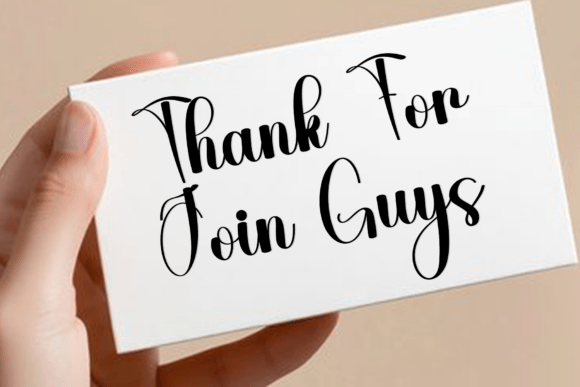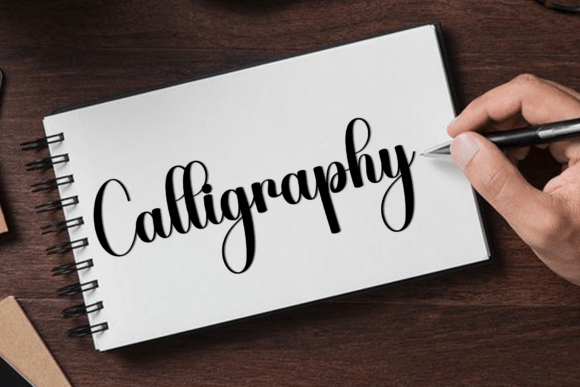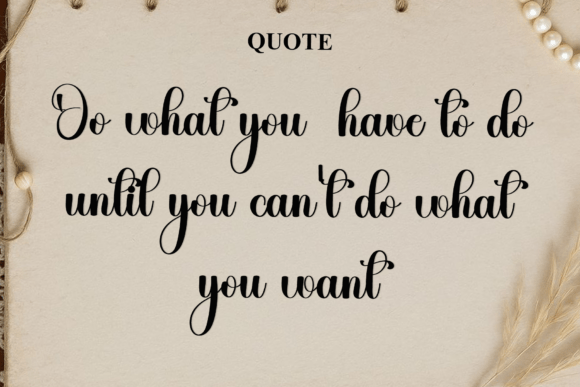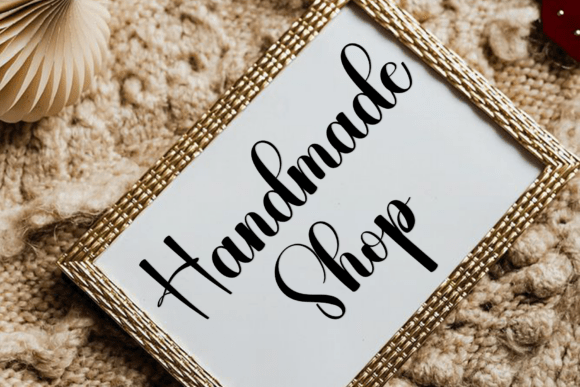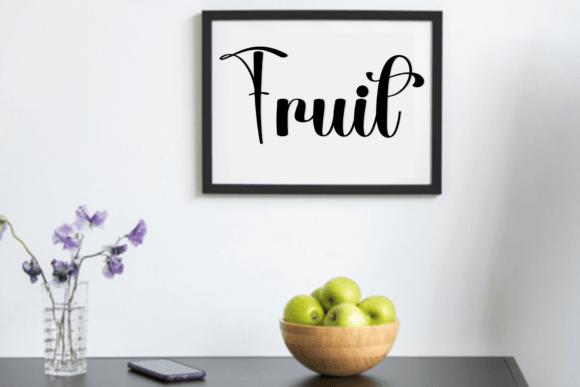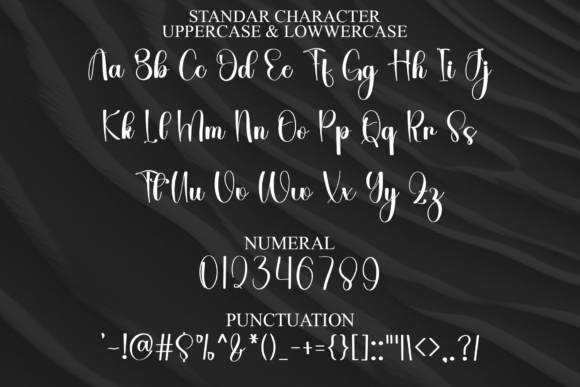
Get Ready to Deck the Halls with the Camping Holiday Font
As the snowflakes start to fall and the fireplace crackles to life, I find myself rummaging through my holiday decorations, searching for that perfect font to add a touch of magic to my greeting cards and gift tags. It’s in these moments that I stumble upon the perfect typography, and my heart skips a beat. The Camping Holiday Font is one such discovery that never fails to bring a smile to my face.
This festive and merry typeface is designed to capture the essence of the holiday season, with its whimsical flair and decorative elements adding a touch of enchantment to your designs. With the Camping Holiday Font, you can create holiday-themed projects that exude cheer and nostalgia. Its PUA encoding also makes it easy to access all the amazing glyphs and ligatures, making it a valuable asset for designers looking to add a personal touch to their work.
- Unique Characteristics: Hand-drawn illustrations, camping-themed icons, and custom-designed typography
Camping Holiday Font Review
Overall, I think the “Camping Holiday Font” has some great qualities, but also a few areas for improvement.
- The font is playful and fun, perfect for designs related to the outdoors or summer vibes.
- The bold weights are great for headings and titles, adding a sense of adventure to your designs.
- The font is highly customizable, with plenty of options for adjusting the style and layout.
- The font can feel a bit too playful for more serious designs, such as business or corporate materials.
- The italic styles can look a bit wonky, especially at smaller font sizes.
- The font may not be suitable for body text, as it can be difficult to read in long blocks of text.
Overall, I think the “Camping Holiday Font” is a great choice for designs that need a fun and adventurous feel. However, it may not be the best fit for more serious or formal designs. With some careful usage and customization, it can add a unique touch to your designs.
To get the most out of the Camping Holiday Font, try the following:
- Use it in combination with other outdoor-themed elements, such as images of nature or camping gear.
- Experiment with different font sizes and styles to create a visually appealing design.
- Use the font in a variety of contexts, such as posters, flyers, and social media graphics.
The Camping Holiday Font is commonly used for:
- Outdoor adventure marketing materials, such as posters and flyers.
- Camping and hiking club promotional materials.